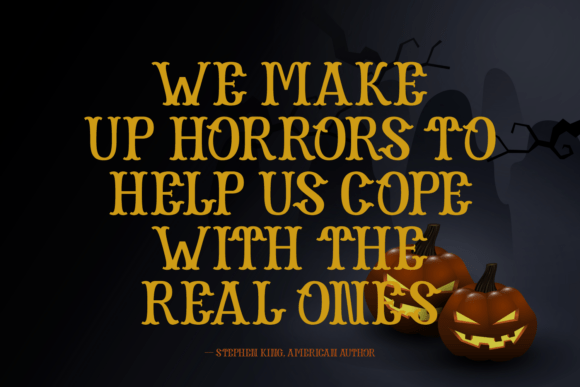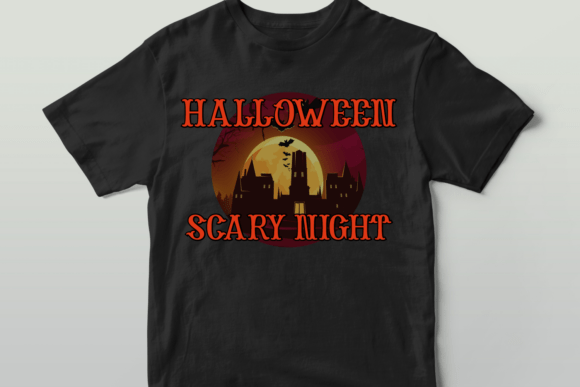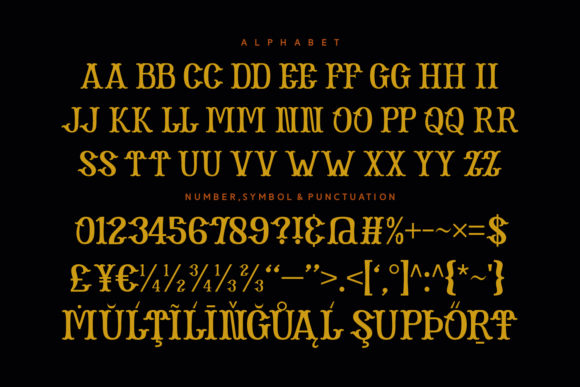
Introducing Ghost Touch Font: The Spookiest Display Font for Halloween
Are you ready to cast a spell on your audience with the perfect typography for your Halloween party invitations, designs, or crafts? Look no further than the Ghost Touch font, a unique and enticing display font that embodies the essence of Halloween. This spooky and scary typeface is designed to set the tone for a howling good time, incorporating elements of haunted, zombie, witch, and boo-themed typography to create an eerie and dark atmosphere.
The Perfect Font for Halloween Designs
Ghost Touch font is the perfect addition to any design project that requires a touch of spookiness and eeriness. Whether you’re designing invitations for a Halloween party, creating a catchy cover for a horror-themed book, or crafting a sign for a haunted house, this font is sure to make a lasting impression. The Ghost Touch font is versatile and can be used in a variety of creative domains, from clean and minimalist designs to bold and eye-catching projects.
Key Features of Ghost Touch Font
- Unique Halloween Essence: Ghost Touch font is designed to capture the spirit of Halloween, with a unique blend of spooky and scary elements that will leave your audience shivering.
- Haunted, Zombie, Witch, and Boo-Themed Typography: This font incorporates a range of Halloween-themed typography elements, including haunted houses, zombies, witches, and ghosts, to create a truly eerie atmosphere.
- Versatile and Adaptable: Ghost Touch font can be used in a variety of design projects, from invitations and posters to signs and crafts.
- Eerie and Dark Atmosphere: This font is designed to create a spooky and eerie atmosphere, perfect for Halloween-themed designs and projects.
How to Use Ghost Touch Font in Your Designs
- Pair it with Other Fonts: Ghost Touch font pairs well with other fonts, including clean and minimalist fonts, to create a bold and eye-catching design.
- Experiment with Colors: The Ghost Touch font looks great in a range of colors, from bold and bright to dark and muted.
- Add Halloween-Themed Elements: Take your design to the next level by adding Halloween-themed elements, such as ghosts, bats, and spiders.
- Use it for Seasonal Designs: Ghost Touch font is perfect for seasonal designs, including Halloween parties, haunted houses, and spooky crafts.
- Experiment with Different Sizes: The Ghost Touch font looks great in a range of sizes, from small and subtle to large and bold.
- Combine it with Other Elements: Take your design to the next level by combining Ghost Touch font with other elements, such as images, textures, and patterns.
In conclusion, Ghost Touch font is a unique and enticing display font that’s perfect for Halloween-themed designs and projects. With its spooky and scary elements, haunted, zombie, witch, and boo-themed typography, and eerie and dark atmosphere, this font is sure to cast a spell on your audience. Whether you’re a designer or crafter, Ghost Touch font is a great addition to your toolkit, and with these tips and tricks, you’ll be well on your way to creating spooky and eye-catching designs that will leave a lasting impression.